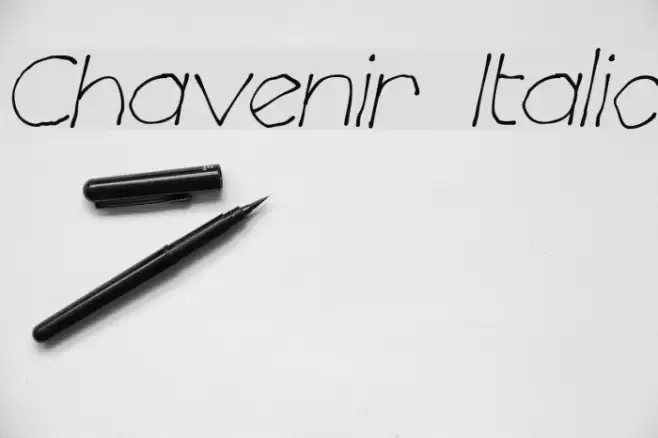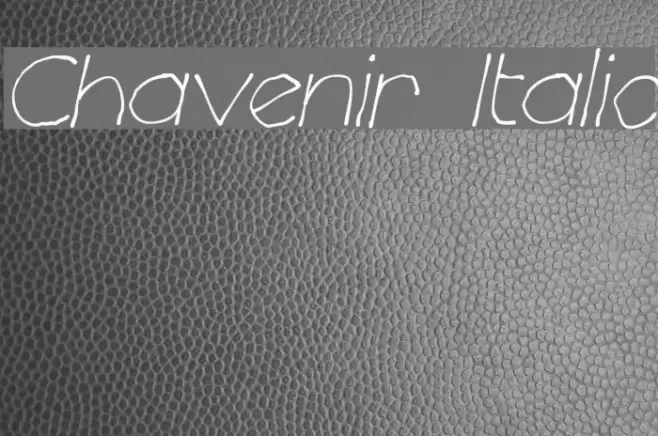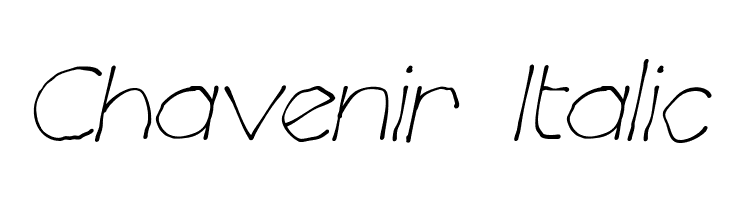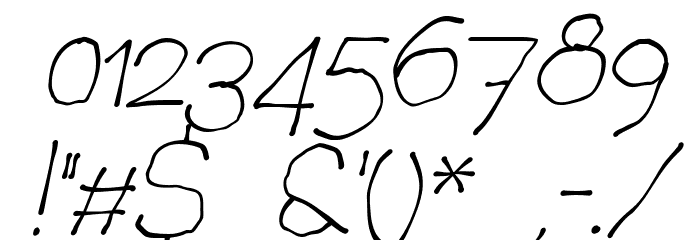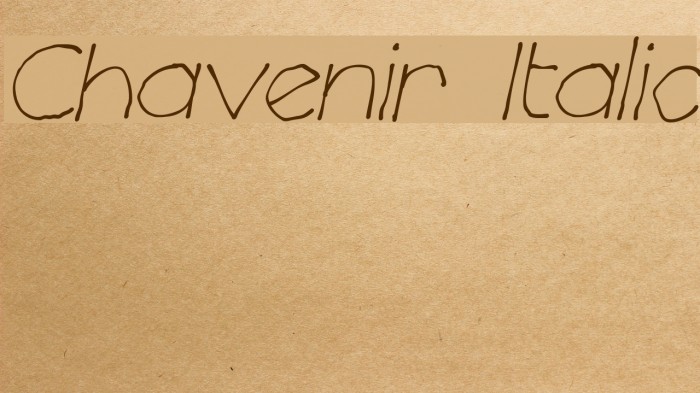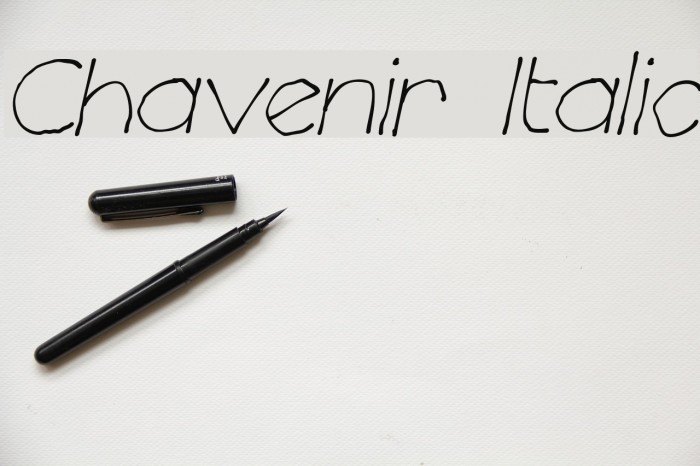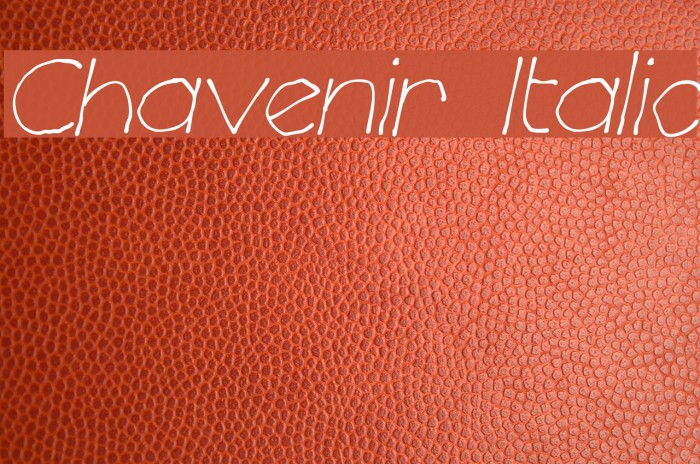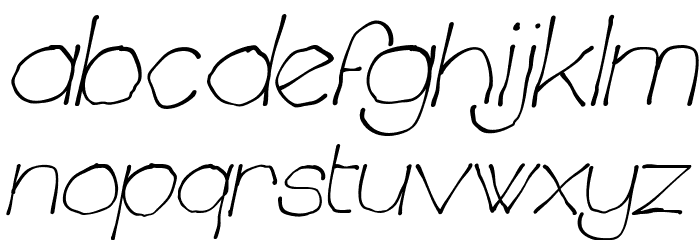
Chavenir Italic Font
Chavenir Italic Description
This font features a unique handwritten style with a playful and casual appearance. The letters are slightly slanted, giving it an italicized look, while maintaining a consistent flow across both uppercase and lowercase characters. The strokes are thin and exhibit a slight wobble, adding to the hand-drawn aesthetic. The numerals and special characters follow the same style, ensuring a cohesive look throughout. This font is ideal for projects that require a personal touch or a relaxed, informal vibe.
A playful, handwritten italic font with a casual, personal touch from Uncategorized fonts.
- Proposed Projects: Ideal for greeting cards, personal blogs, creative invitations, and informal branding.
- Overall Style: Casual, Playful
- Use Case: Headlines, Informal text, Creative projects